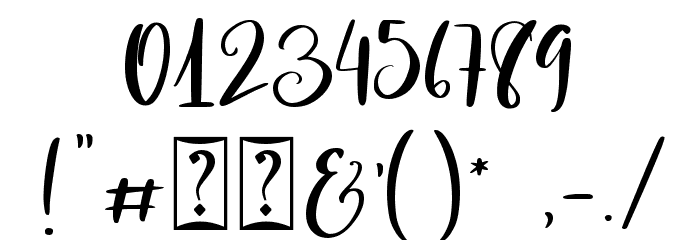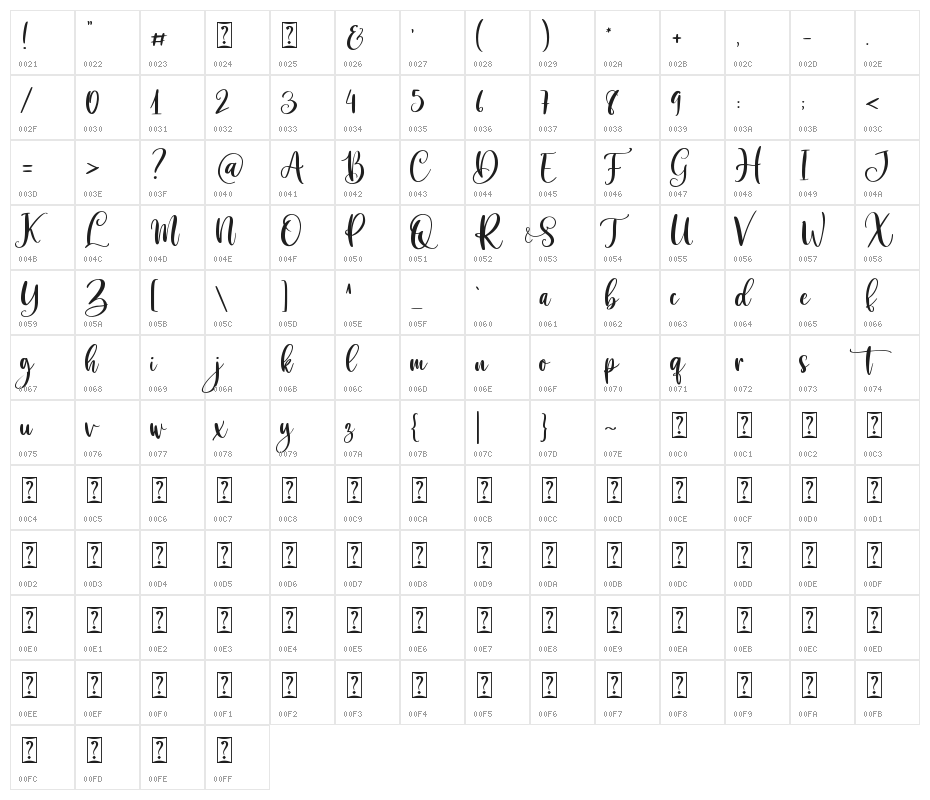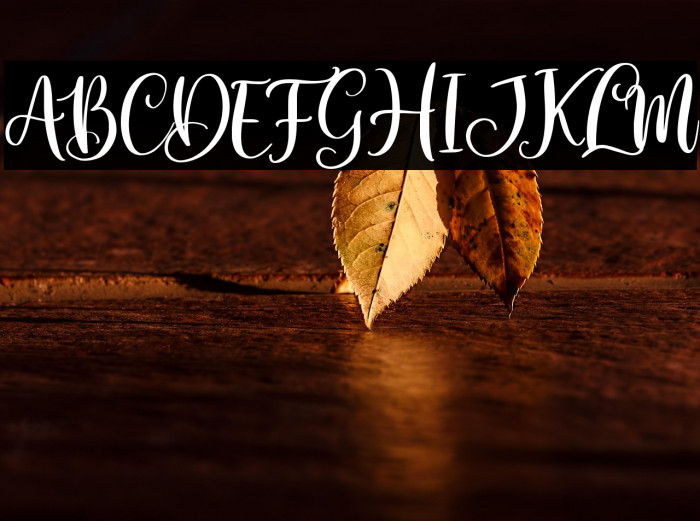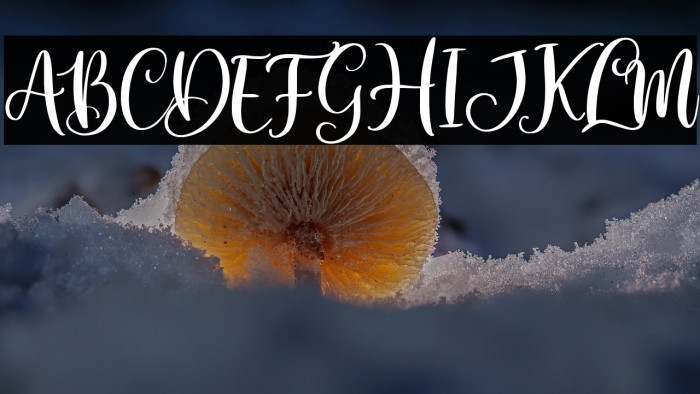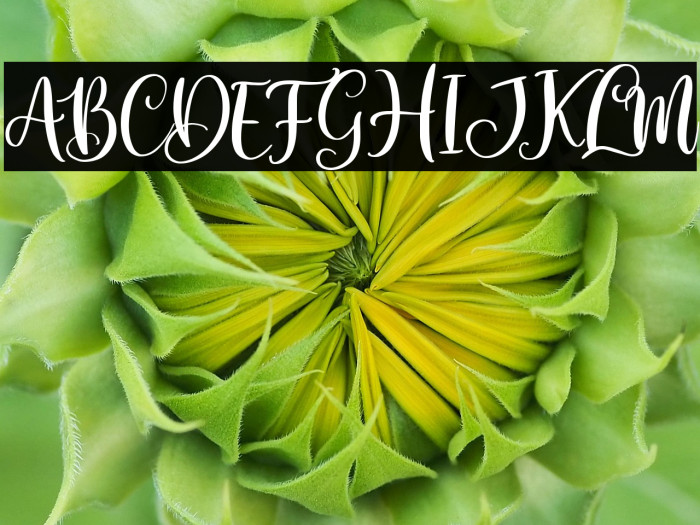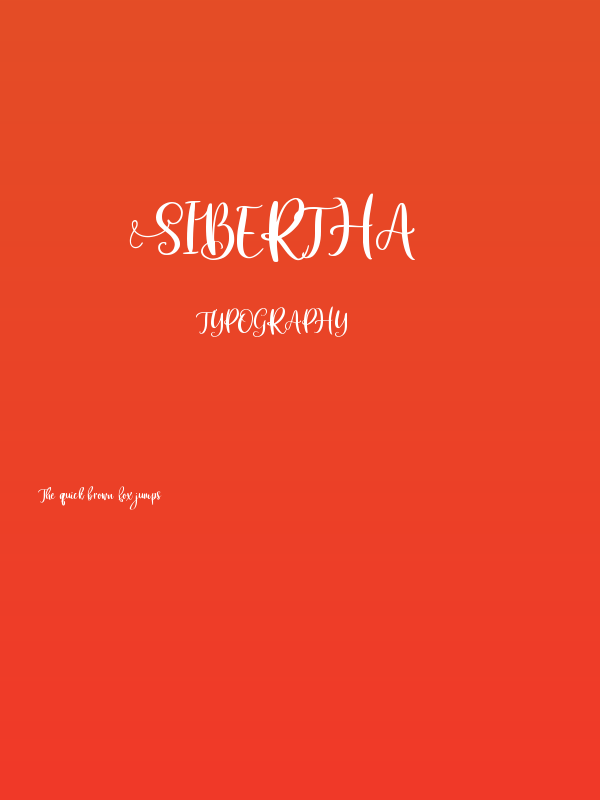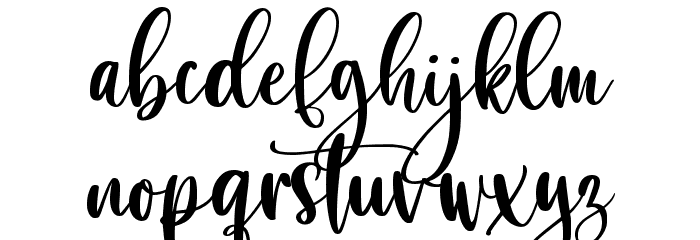
Sibertha Font
Sibertha Description
This font features an elegant and flowing script style, characterized by its ornate and decorative letterforms. The uppercase letters are particularly elaborate, with intricate swirls and loops that give a sense of sophistication and flair. The lowercase letters maintain a consistent style, with smooth curves and a slightly playful touch. The numerals are bold and clear, complementing the overall aesthetic. Special characters are designed with the same attention to detail, ensuring a cohesive look across all glyphs. This font is perfect for projects that require a touch of elegance and creativity.
| Use Case | Logos, Invitations, Decorative Text |
| Proposed Projects | Ideal for wedding invitations, luxury branding, greeting cards, and decorative signage. |